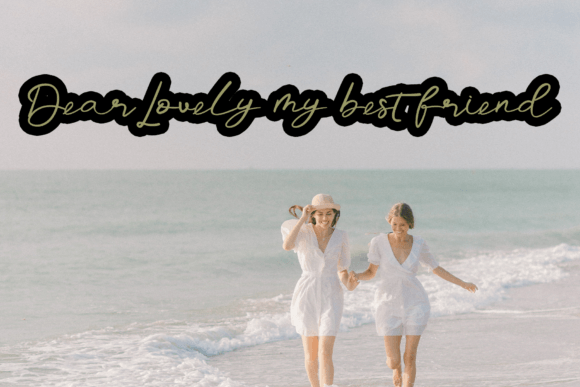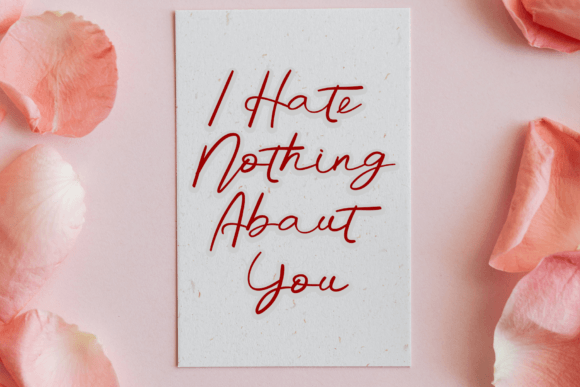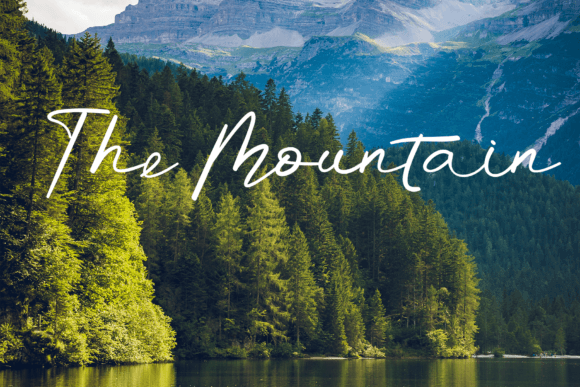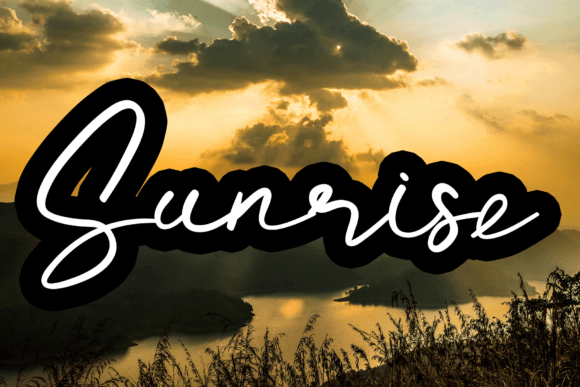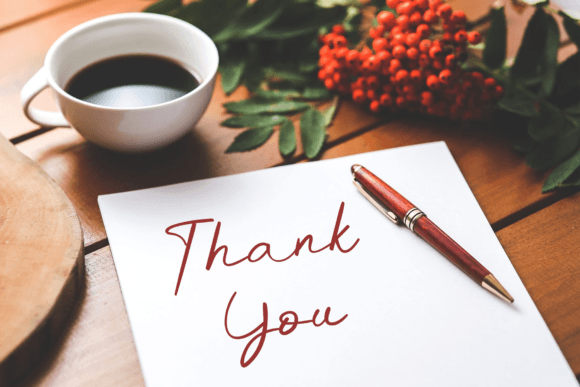
Introducing Handmade Summer: A Sweet and Friendly Handwritten Font
Are you looking for a font that can add a personal touch to your designs? Do you want to create beautiful and eye-catching wedding invitations, cards, or other craft projects? Look no further than Handmade Summer, a lovely handwritten font that’s perfect for adding a sweet and friendly feel to your work.
What is Handmade Summer?
Handmade Summer is a beautiful handwritten font that’s designed to bring a sense of fun and relaxation to your designs. With its smooth and flowing lines, this font is ideal for creating a wide range of projects, from wedding invitations and cards to posters, flyers, and more.
Characteristics of Handmade Summer
So, what makes Handmade Summer so special? Here are just a few of its key characteristics:
- Sweet and friendly: Handmade Summer has a warm and inviting feel that’s perfect for creating designs that are personal and heartfelt.
- Handwritten: This font has a beautiful, handwritten quality that’s perfect for adding a touch of personality to your designs.
- Fun and relaxed: Handmade Summer has a carefree, laid-back vibe that’s perfect for creating designs that are fun and playful.
- Versatile: This font is suitable for a wide range of projects, from formal wedding invitations to casual craft projects.
Why Choose Handmade Summer?
So, why should you choose Handmade Summer for your next design project? Here are just a few reasons:
- Add a personal touch: With Handmade Summer, you can add a personal touch to your designs that’s sure to make them stand out.
- Create beautiful wedding invitations: This font is perfect for creating beautiful and elegant wedding invitations that will set the tone for your special day.
- Perfect for crafters: Handmade Summer is a great choice for crafters who want to add a personal touch to their projects, from cards and gift tags to scrapbook pages and more.
- Easily readable: This font is easy to read, making it perfect for creating designs that need to be both beautiful and functional.
How to Use Handmade Summer
Key Features of Handmade Summer Font
| Font Style | Handwritten |
| Font Weight | Light to Medium |
| Characters | Uppercase and lowercase letters, numbers, and punctuation |
| Language | English and other languages that use the Latin alphabet |